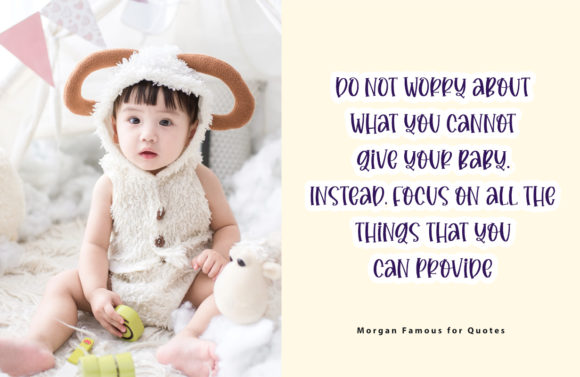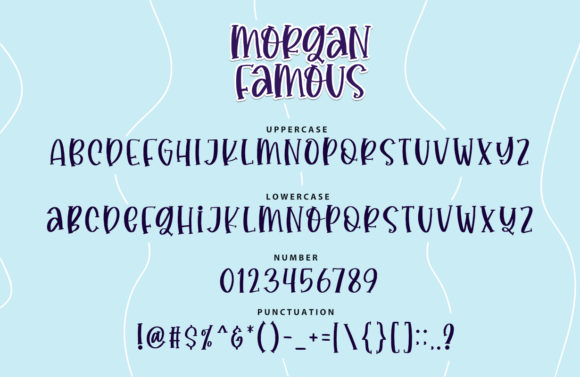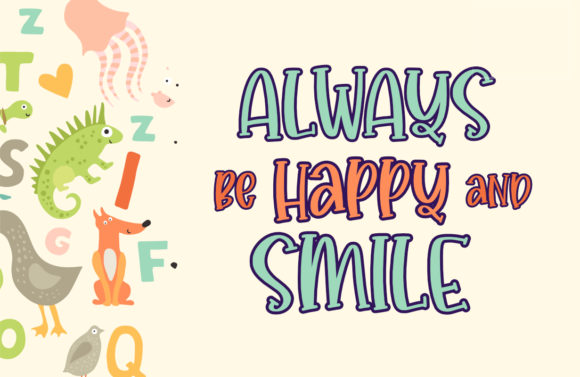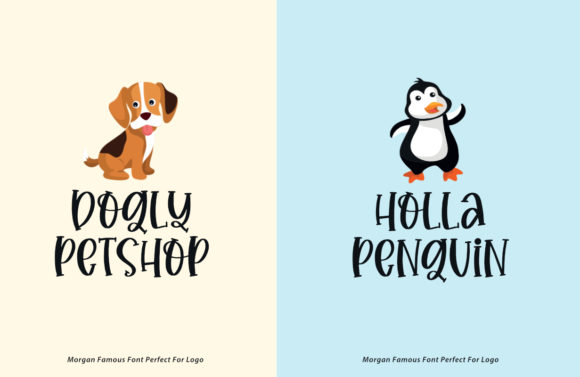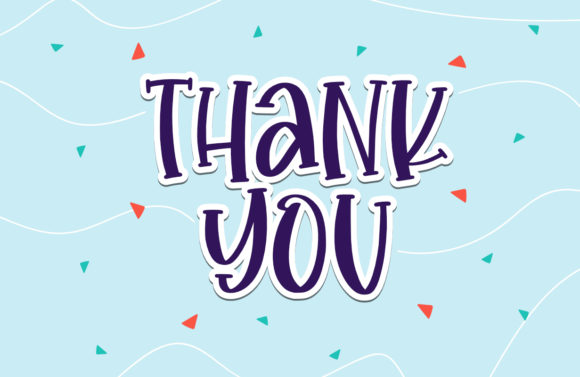
Introduction to Morgan Famous Font
As a designer, have you ever been stuck in a creative rut, searching for the perfect font to give your project that extra oomph? You know, that moment when you’re brainstorming ideas for a new logo or social media campaign and the right font just slips your mind? I’ve been there too, and that’s exactly why I’m excited to share with you one of my favorite design resources: the Morgan Famous Font.
This adorable, handwritten font is more than just a pretty face – it’s a high-quality design tool that’s perfect for any creative project. With its friendly feel and versatility, the Morgan Famous Font is a valuable addition to any designer’s toolkit. Whether you’re working on a free download or a high-end branding project, this font is sure to bring a smile to your clients’ faces. And the best part? It’s available for free download, complete with a transparent background, making it easy to customize to your heart’s content.
Morgan Famous Font
- Includes 6 styles and 3 weights for versatile usage
- Designed with a large x-height for improved readability at various resolutions
- Supports up to 2048×2048 pixels for high-resolution printing and digital use
- Comes with a comprehensive character set, including Latin, Greek, and Cyrillic alphabets
Honest Review: Morgan Famous Font
I recently stumbled upon the Morgan Famous Font, and I must say it’s been a game-changer for my creative project. This design resource has been a lifesaver, and I’m excited to share my honest review with you.
- High-quality design: The Morgan Famous Font is incredibly well-designed, with a sleek and modern aesthetic that’s perfect for any project.
- Limited font styles: While the Morgan Famous Font is great for headlines and titles, it may not be suitable for body text due to its limited font styles.
- Not ideal for small text: The font can become difficult to read when used for small text sizes, so it’s best to use it for larger headings.
Overall, I’m really impressed with the Morgan Famous Font. It’s a great addition to my design toolkit, and I’m excited to see how it will enhance my future projects.
Morgan Famous Font
Tips for Getting the Most Out of Morgan Famous Font
To get the most out of the Morgan Famous Font, try using it in combination with other design elements, such as graphics and images. Experiment with different font sizes and colors to create a unique look.
The Morgan Famous Font is perfect for a variety of projects, including: